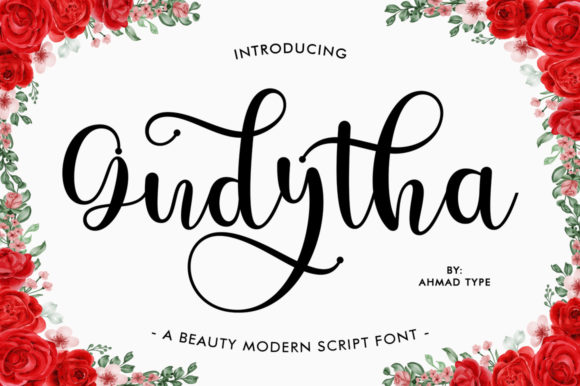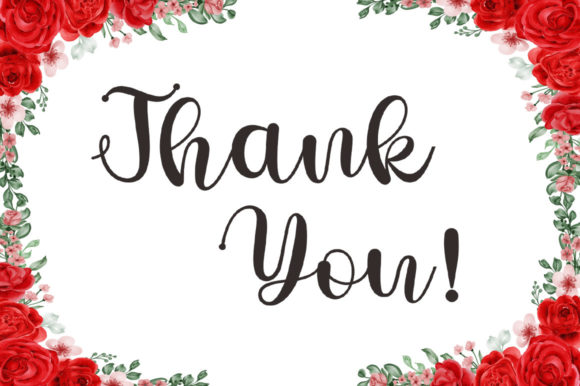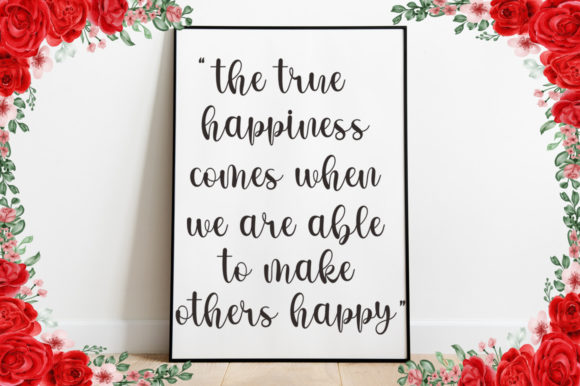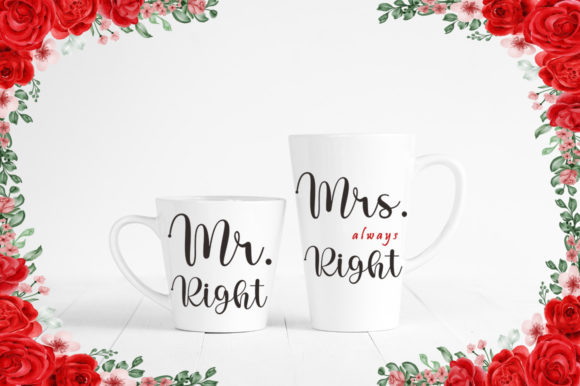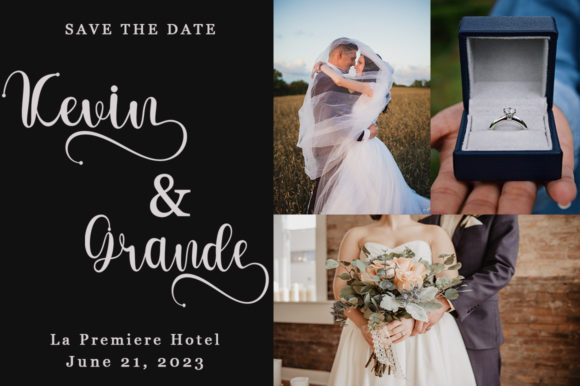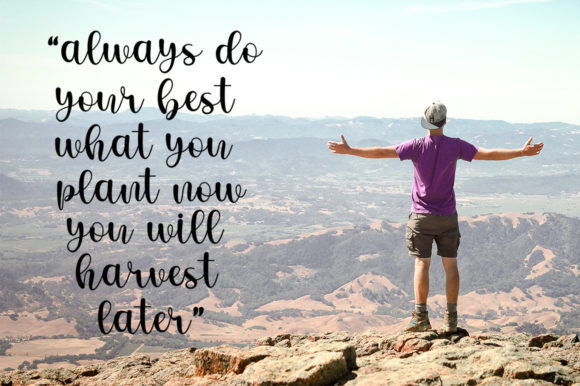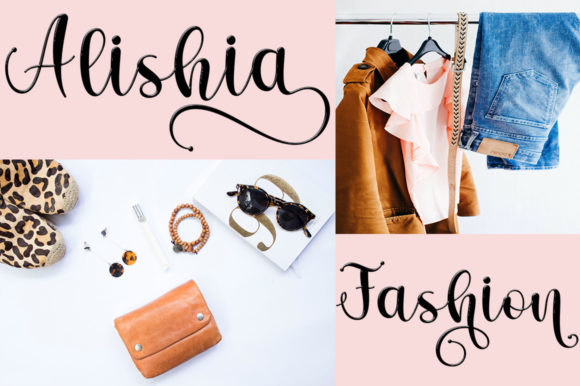
Gudytha Font
About Gudytha Font
Gudytha is an elegant and stylish handwritten font, carefully handcrafted to become a true favorite. It is perfect for various purposes such as logos, wedding invitations, headings, t-shirts, letterhead, signage, labels, news, posters, badges, and so much more.